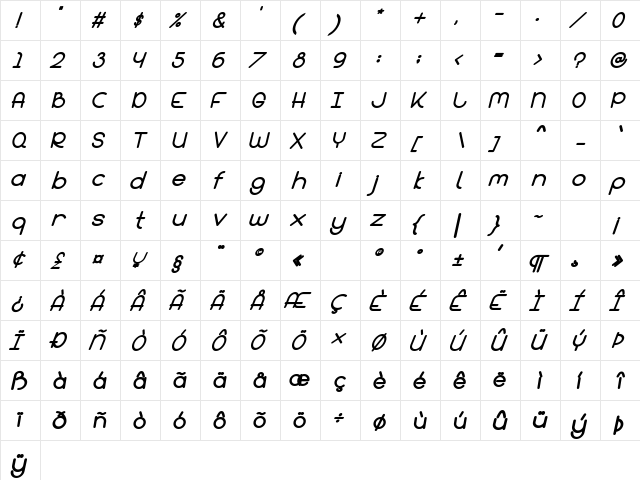
Bandar Bold Italic
| Designer | Afkari Studio KanaType |
Design Context for Bandar Typeface
Bandar is a composed and adaptable typeface that performs quietly and consistently across a wide range of design contexts. The slanted form adds forward momentum and visual energy. The heavy weight commands attention and anchors typographic hierarchies.